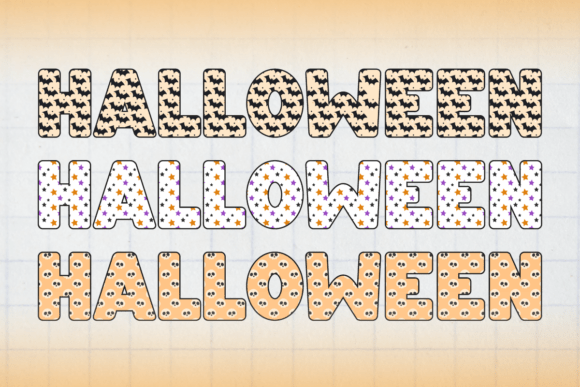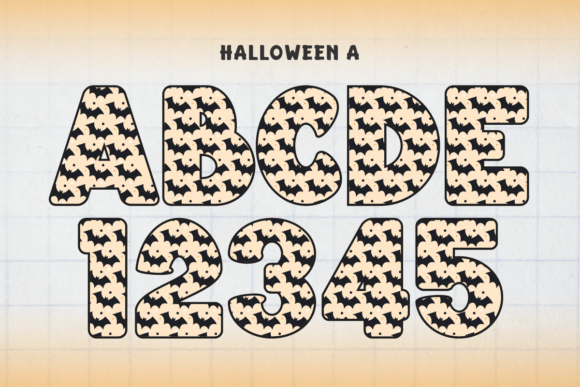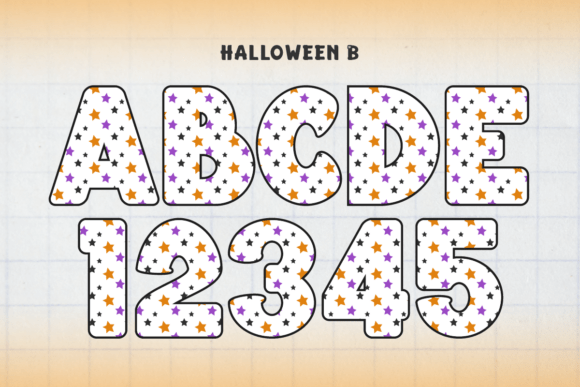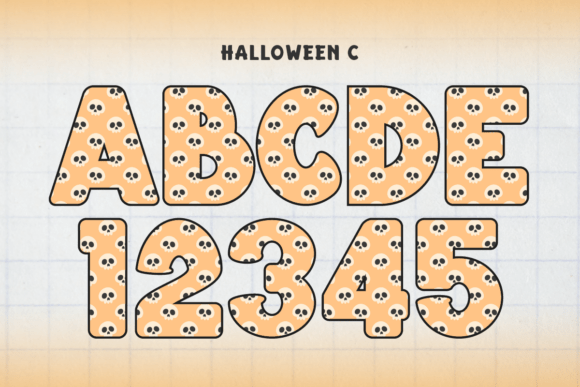
Halloween Doodle Font: Add a Spooky Fun Touch to Your Crafts
Are you looking for a unique and playful way to add a festive touch to your creative projects this Halloween season? Look no further than the Halloween Doodle Font, a cute and colorful display typeface that’s perfect for crafters and designers alike. This font is filled with playful Halloween patterns, including doodle-style bats, stars, skulls, and more, making it the ideal choice for creating eye-catching designs that will stand out from the crowd.
What is Halloween Doodle Font?
Halloween Doodle Font is a specially designed display typeface that’s perfect for adding a spooky fun touch to your crafts. Each letter is carefully decorated with doodle-style Halloween patterns, making it a unique and playful way to add some personality to your designs. Whether you’re making t-shirts, mugs, stickers, invitations, tote bags, or seasonal home décor, this font is sure to make your designs stand out with its adorable and vibrant style.
Project Ideas for Halloween Doodle Font
Tips for Using Halloween Doodle Font
Here are a few tips for getting the most out of Halloween Doodle Font:
- Experiment with different colors: While the black version of this font is perfect for cutting machines, the color version offers a wide range of creative possibilities.
- Mix and match: Combine Halloween Doodle Font with other fonts and graphics to create unique and eye-catching designs.
- Pay attention to font size: For best results, use Halloween Doodle Font at a larger size to ensure that the doodle-style patterns are clear and visible.
Halloween Doodle Font is a unique and playful way to add a spooky fun touch to your creative projects this Halloween season. With its cute and colorful doodle-style patterns, this font is perfect for crafters and designers who want to create eye-catching designs that will stand out from the crowd. Whether you’re making t-shirts, mugs, stickers, or home décor, Halloween Doodle Font is the perfect choice for adding a festive touch to your designs.